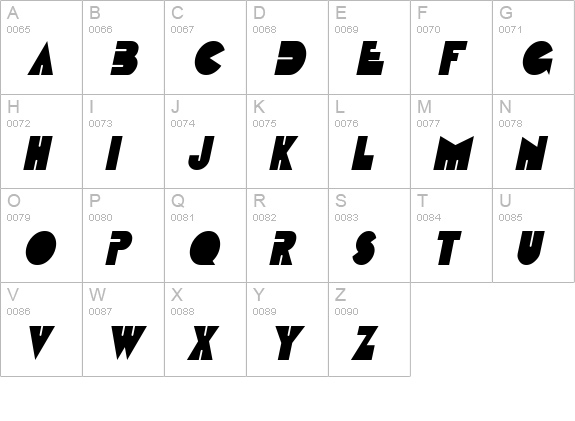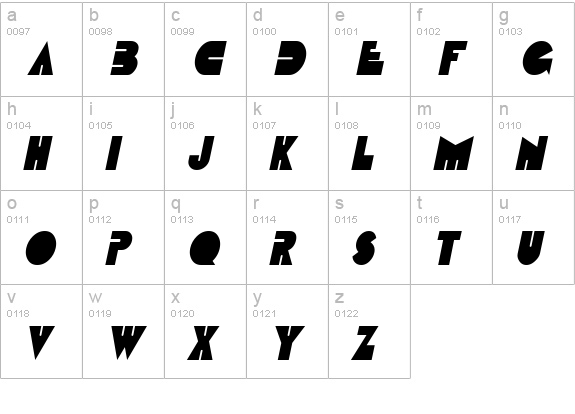
Fatso Condensed Italic is a distinctive, condensed-width, italic variant in the Fatso typeface family \xE2\x80\x94 well suited to design and typography projects.
Fatso Condensed Italic font is a sleek and modern typeface that brings a touch of sophistication to any design. With its condensed style and italicized letterforms, this font exudes a sense of elegance and flair. The unique curves and angles of each letter create a dynamic and eye-catching appearance that is sure to captivate your audience. What's even better is that Fatso Condensed Italic font is available for free download at FontsMarket.com. This means you can easily access and use this stylish font in your projects without any cost. Whether you're working on branding materials, advertisements, or digital designs, Fatso Condensed Italic font offers a versatile and striking option that will elevate your work to the next level. Don't miss out on the opportunity to enhance your projects with the charm and sophistication of Fatso Condensed Italic font. Download it for free today and start creating stunning designs that stand out from the crowd.